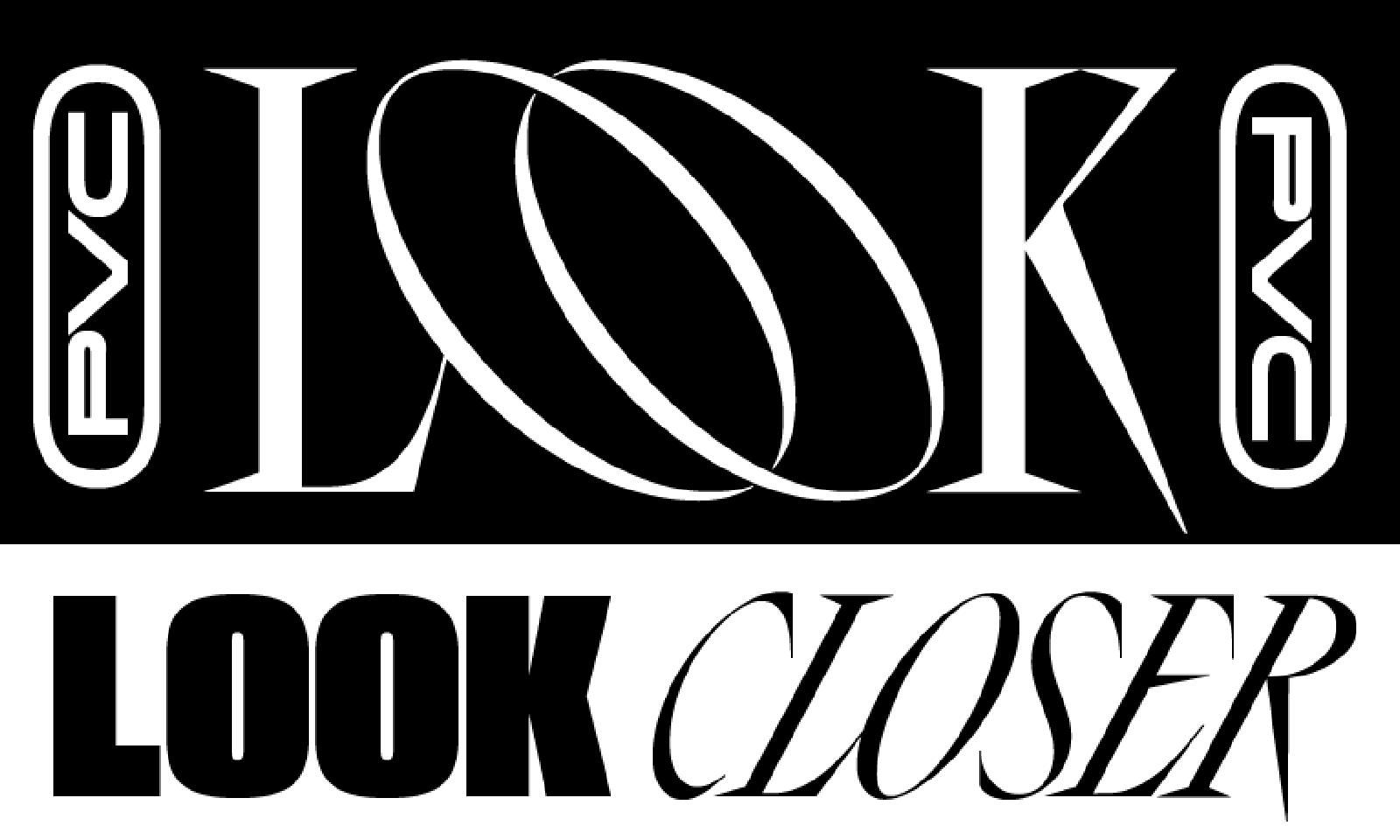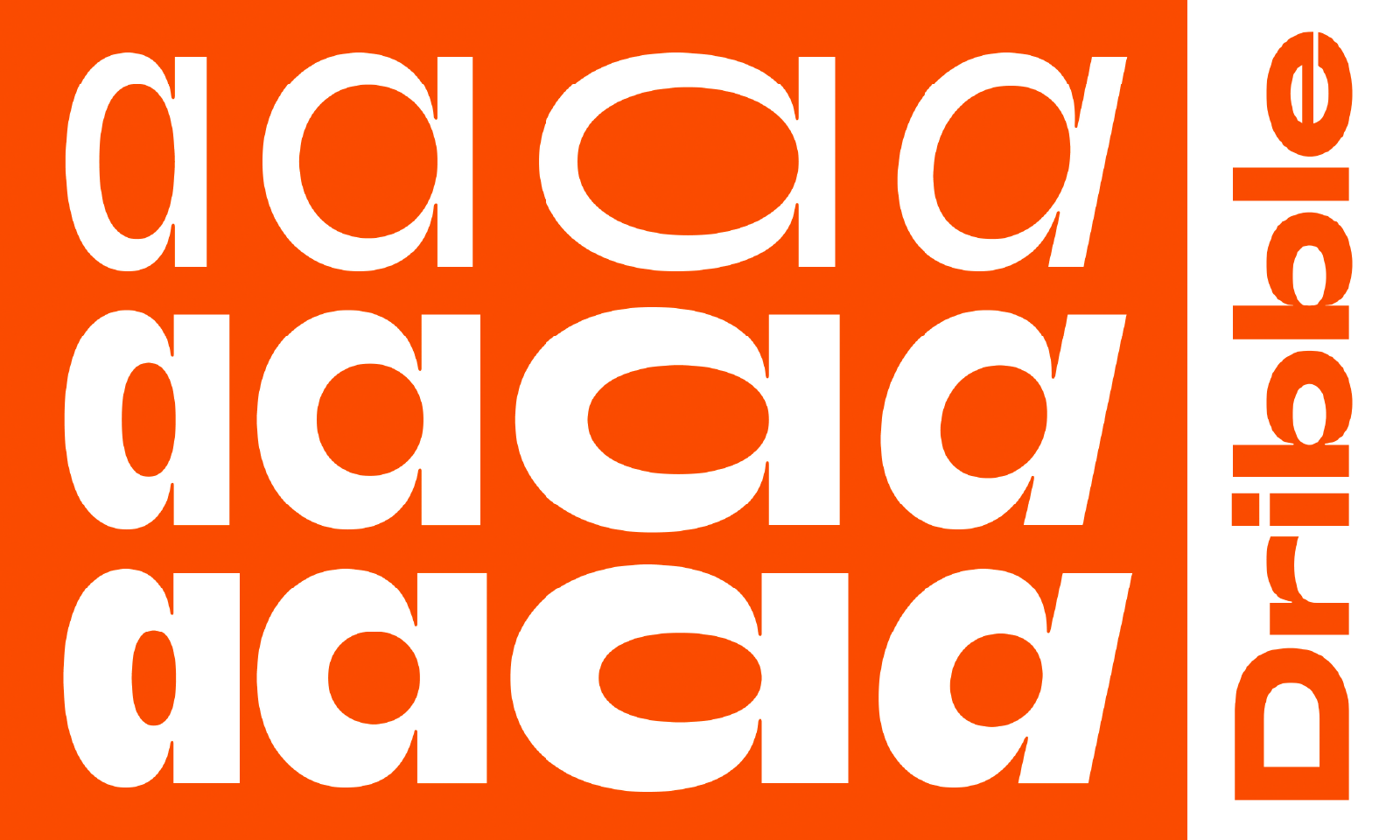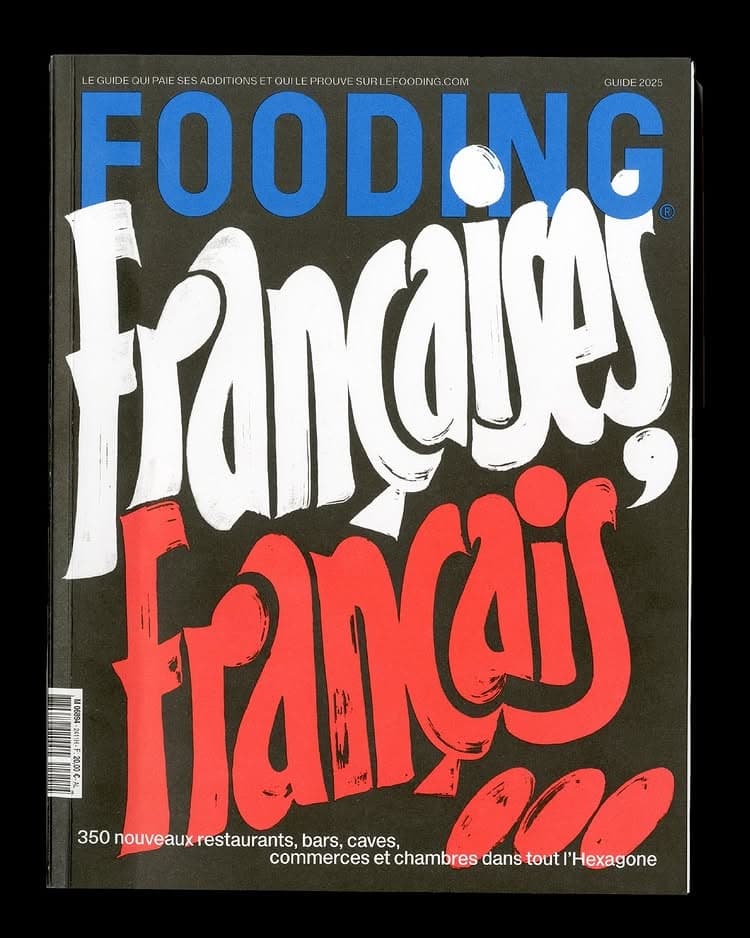
From the custom WNBA typeface to her in situ signwriting performances, Hélène Marian will discuss the close link between freehand lettering and vector type design in her work – what brings them together, but also what sets them apart. All of this, sprinkled with strange music and circus carriages.
Hélène Marian, with a degree in Illustration and Type Design from École Estienne, Paris, transitioned into type design after several years working as a typographer with Michael Levin at Doc Levin Studio. Together, they designed museum identities for MahJ, exhibition signages for the BnF, Shoah Memorial, and Cité de la Musique, and catalogs and programmes for the Musée National de la Renaissance.
As independent, she practices now a dual design combining typographic rigor with unbridled gesturality. Adept of spectacular in situ interventions, she has been seen in Brittany painting words on boats ready to set sail, in the window of the Musée des Beaux-Arts in Pau, setting up an orgy of undulating letters under pink neon lights, and punctuating the grand parade of the 93 with countless painted lettering signs. Her award-winning PVC typeface family, a polymorphous and manifesto-like project, is published by the French foundry Production Type, with which she also teamed up to create custom typefaces for the Women’s National Basketball Association (WNBA). NaN Archy, her last project published by the Berlin-based Foundry NaN reveals design steps as a feature, a mise en abyme of the type design process.
She has also taught for several years in the international postgraduate typography programme Esad Type, and the workshops she gives in Europe, such as at Écal, HfG, La Cambre, etc. are a part of her practice.
Since 2015, she has been actively collaborating with the French experimental music scene by creating numerous letterings and visuals for labels, musicians and magazines.